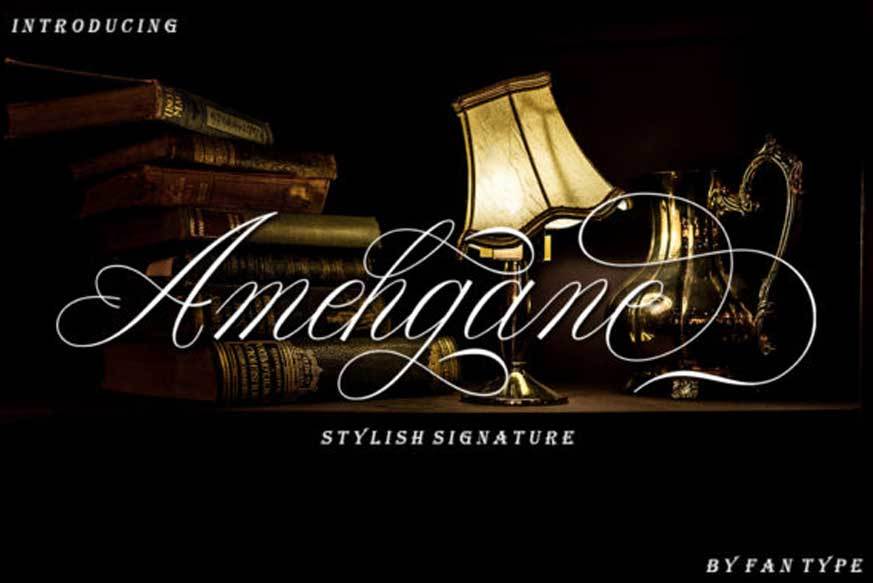
Anehgane Font
The Amehgane font is an amazing script font. It has a beautiful swoosh and swash that gives an elegant impression, while still being easy to read. It’s the perfect font to add a feminine and elegant touch to your design.